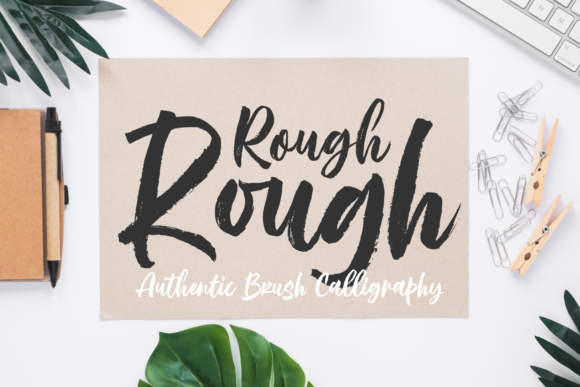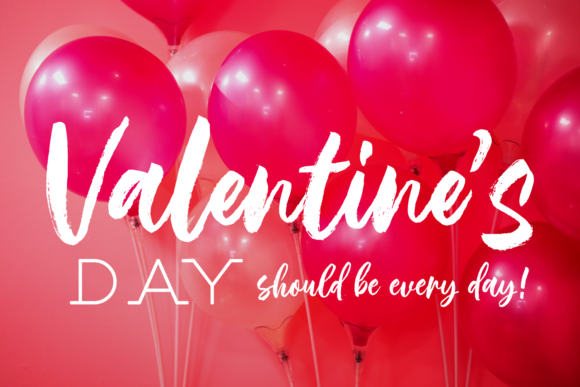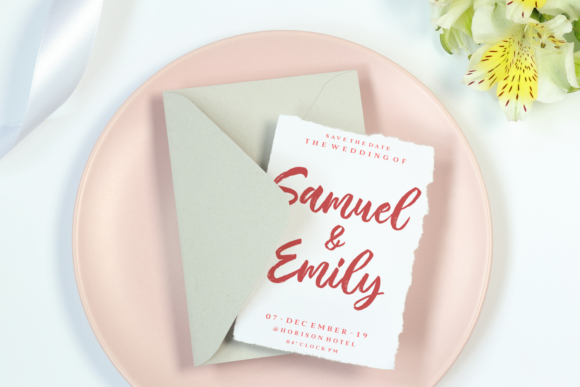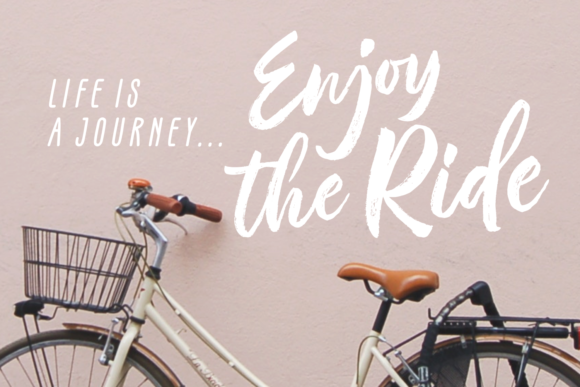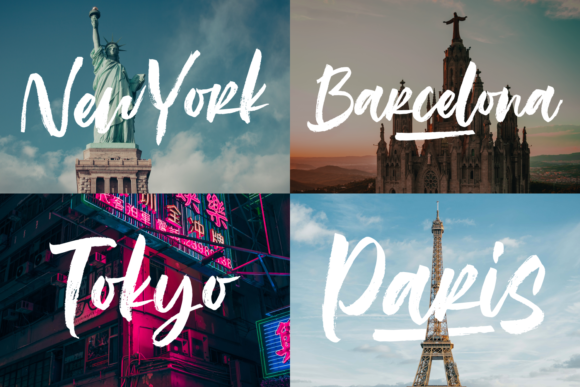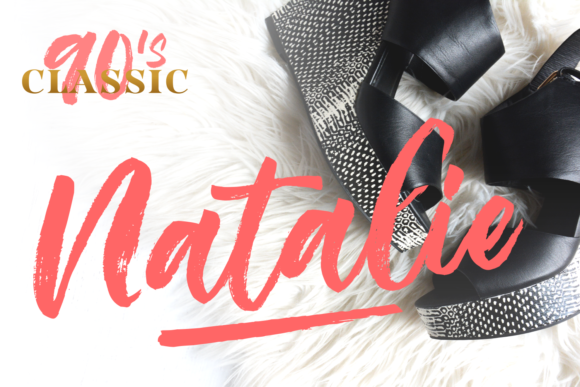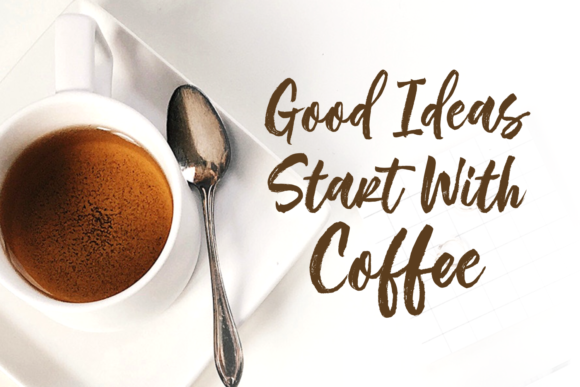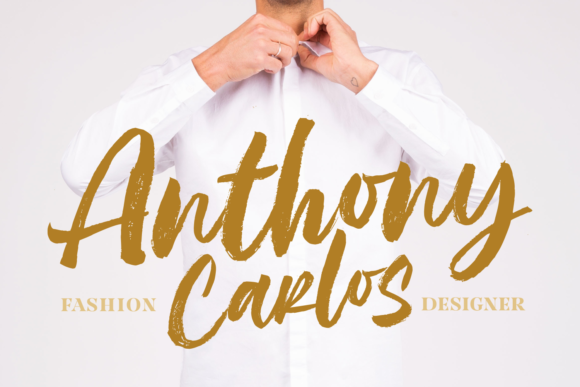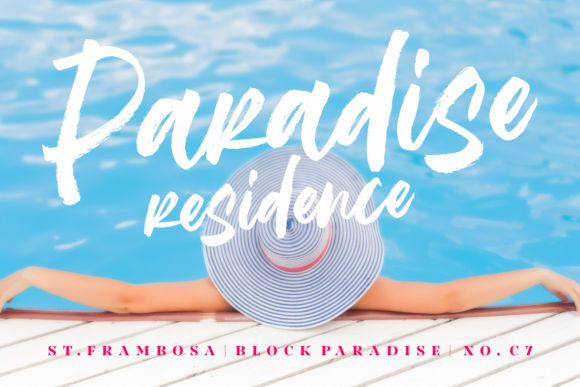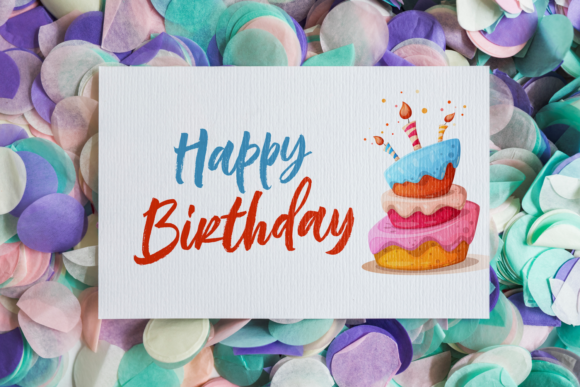
Rough Rough Font
About Rough Rough Font
Rough Rough is a fun and bold handwritten font with a contemporary twist. It will turn any design project into a standout!